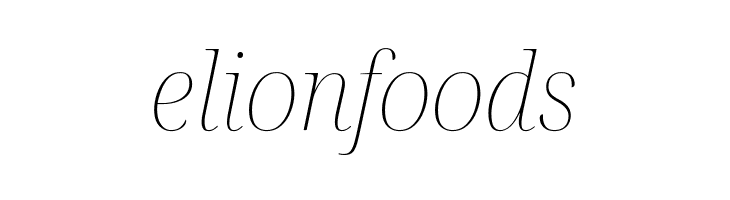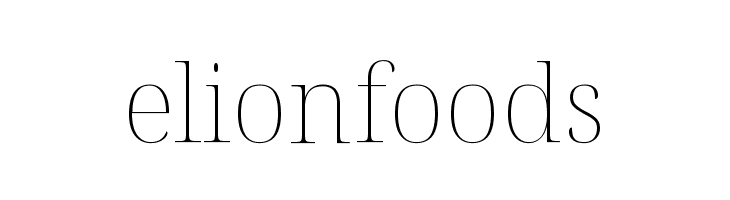
A refined, thin, and italic serif font with high contrast and condensed letterforms.
A refined, extra-condensed serif font with thin strokes and high contrast.
A refined, thin, italic serif font with extra-condensed width and high contrast.
A refined serif font with thin strokes and a semi-condensed style.
An elegant, thin serif font with a semi-condensed, italic style and high contrast.
• Noto Serif Display Thin
A refined serif font with thin strokes and a classic, elegant style.
• Noto Serif Display Thin Italic
Elegant serif font with thin, italicized strokes for a classic and refined look.
A condensed, thin serif font for Ethiopic script.
A thin, semi-condensed serif font with a refined and minimal look.
• Noto Serif Ethiopic Thin
A thin, elegant serif font with a classic and refined appearance.
• Noto Serif ExtraCondensed Thin
A refined serif typeface with thin strokes and an extra condensed structure.
A refined, thin serif typeface with an elegant italic style and extra-condensed width.
A condensed, thin font with a clean and modern design.
A modern, extra condensed font with thin strokes and a geometric style.
A refined serif font with a semi-condensed, thin structure, ideal for elegant and professional use.
• Noto Serif Georgian Thin
A thin, elegant serif font with a modern and sophisticated style.
• Noto Serif Hebrew Condensed Thin
Thin, condensed Hebrew serif font.
A refined serif typeface with thin strokes and a semi-condensed structure.
A thin, semi-condensed serif font with an elegant italic style.